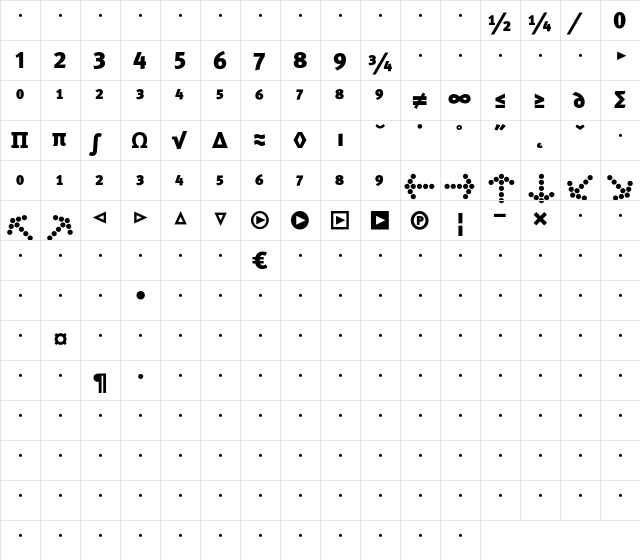
MetaBlackCyr-Expert Regular Font Preview
MetaBlackCyr-Expert Regular
MetaBlackCyr-Expert Regular Font Details
Design Context for MetaBlackCyr-Expert Typeface
MetaBlackCyr-Expert is a composed and adaptable typeface that performs quietly and consistently across a wide range of design contexts.
Pro Tip: Use MetaBlackCyr-Expert in both headline and body roles to test its range before committing to a single application.